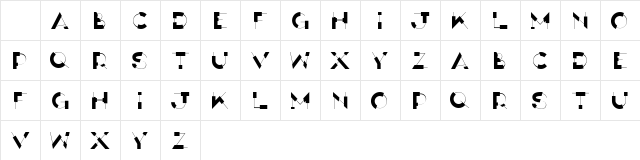
Complete ANTI Display glyph index. Displaying only characters natively supported by ANTI Display font.
ANTI is built around its visual character rather than neutral utility - its distinctive forms are designed to make an impression at display sizes.
Font Pairing: Pair with a clean neutral sans-serif for body copy to let ANTI's character lead without overwhelming the composition.
Pro Tip: Use ANTI exclusively at display sizes - it was designed to be seen, not read at length. Let a neutral companion handle body copy.